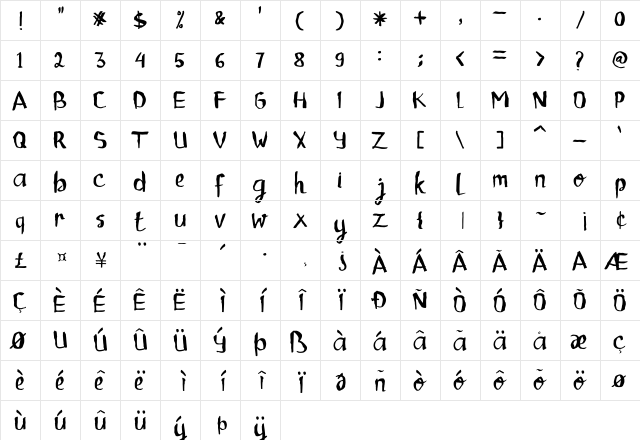
Childrenalien Regular
| Foundry | creativemedialab |
| Designer | Kadek Adi Mahardika |
Design Context for Childrenalien Typeface
Childrenalien trades formality for fun, with bouncy, characterful letterforms that bring warmth and energy to any project.
Well-suited to food and beverage brands with personality, educational materials, and fun-forward identities.
Font Pairing: Pairs well with a rounded or humanist sans for body copy, maintaining the friendly tone without relying on Childrenalien to carry extended reading.
Pro Tip: Use Childrenalien at larger display sizes where its expressive character can land. Pair with a clean, simple sans for body copy to maintain readability.